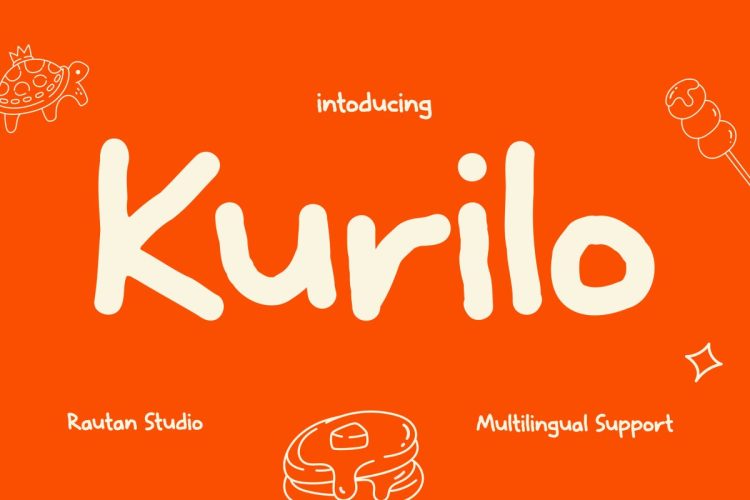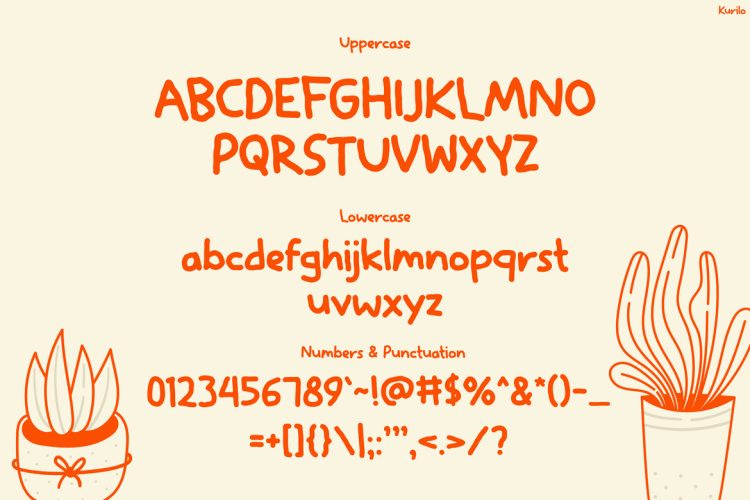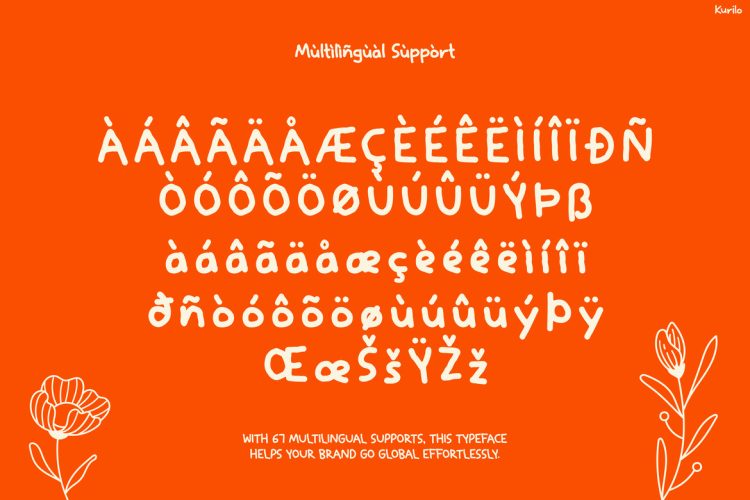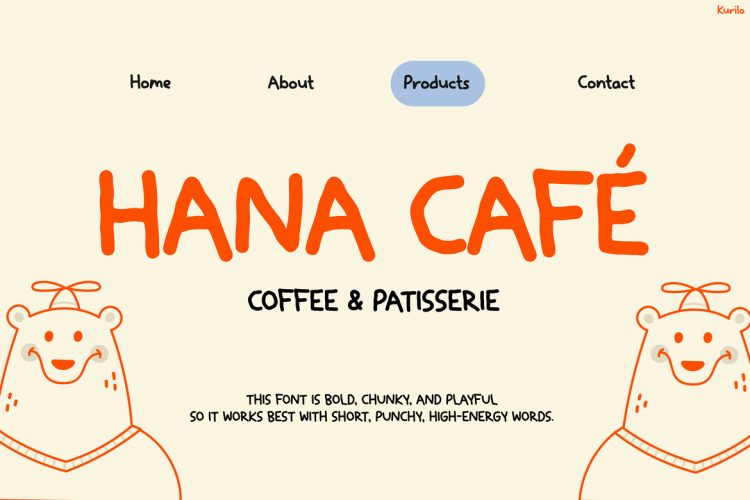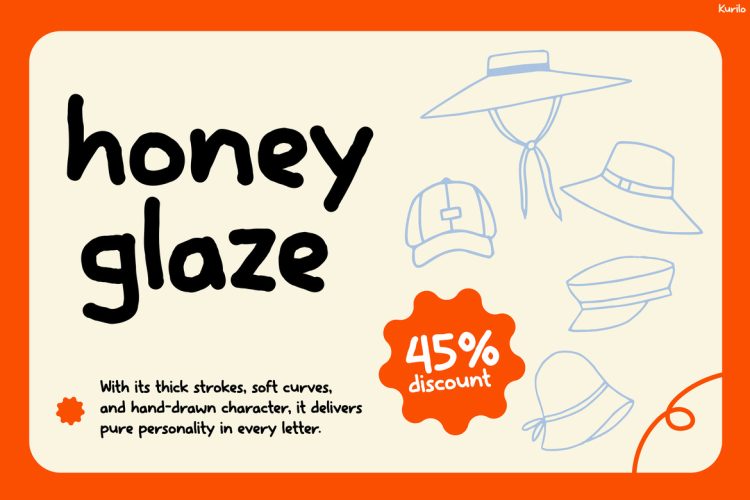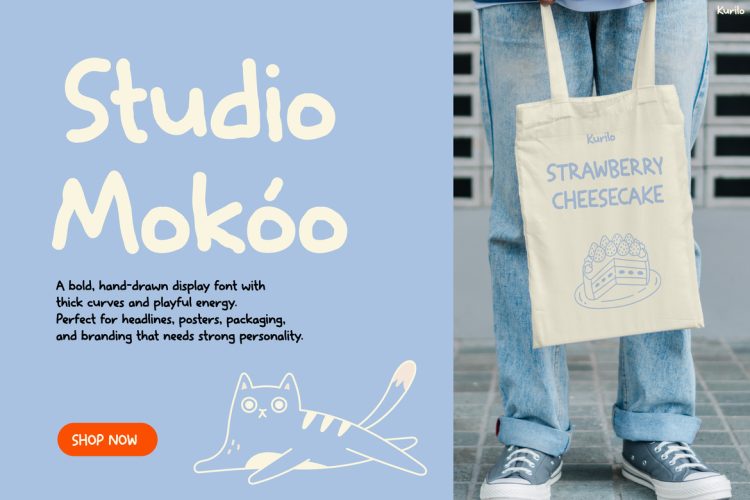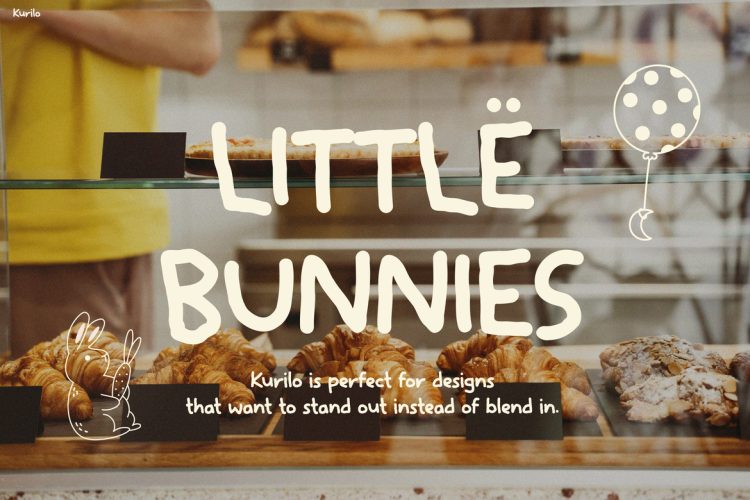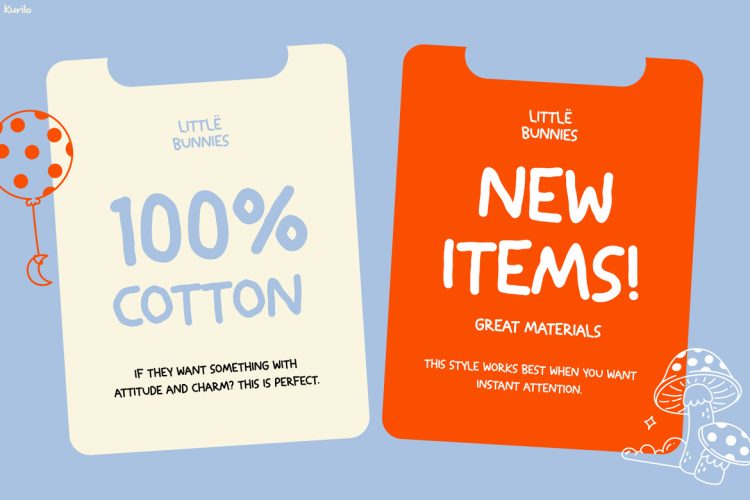
Kurilo โ Playful Handwritten Display Font
Instagram Font Kurilo brings a fresh burst of playful energy with its hand-drawn charm and friendly personality. Designed with soft curves and organic strokes, this font feels natural, warm, and effortlessly expressive. Moreover, its casual handwritten style creates an approachable tone, making every design feel more human and relatable. At the same time, Kurilo maintains strong readability, so it works beautifully across both digital and print media. Because of its lively rhythm and imperfect details, it captures attention without feeling forced. As a result, this font becomes a perfect balance between fun aesthetics and functional design.
In addition, Kurilo stands out with its smooth, rounded letterforms and playful consistency, which instantly create a joyful visual experience. Not only does it enhance branding with a friendly vibe, but it also adds personality to every word. Furthermore, the font includes multilingual support for 67 languages, making it highly versatile for global projects. Whether you are designing packaging, social media posts, or merchandise, Kurilo adapts seamlessly. Likewise, its bold yet soft appearance ensures clarity while keeping things visually engaging. Because of this, designers can confidently use it for both headlines and creative compositions.
Therefore, Instagram Font Kurilo is ideal for food branding, cafรฉ menus, snack packaging, kids-related designs, and playful advertising. Additionally, it works perfectly for social media content, posters, logos, and lifestyle brands that want to appear friendly and modern. Not only that, but it also suits creative entrepreneurs, small businesses, and designers who want to build a warm and inviting identity. As a result, Kurilo becomes a go-to choice for projects that need charm, softness, and personality.
Finally, if you want your designs to feel fun, engaging, and full of life, Instagram Font Kurilo is the perfect choiceโso donโt miss the chance to make your visuals more expressive and memorable today.